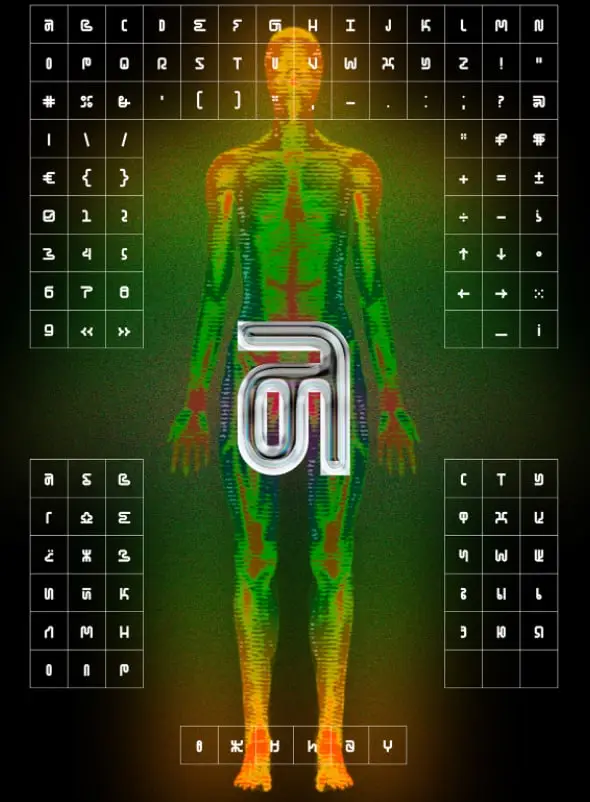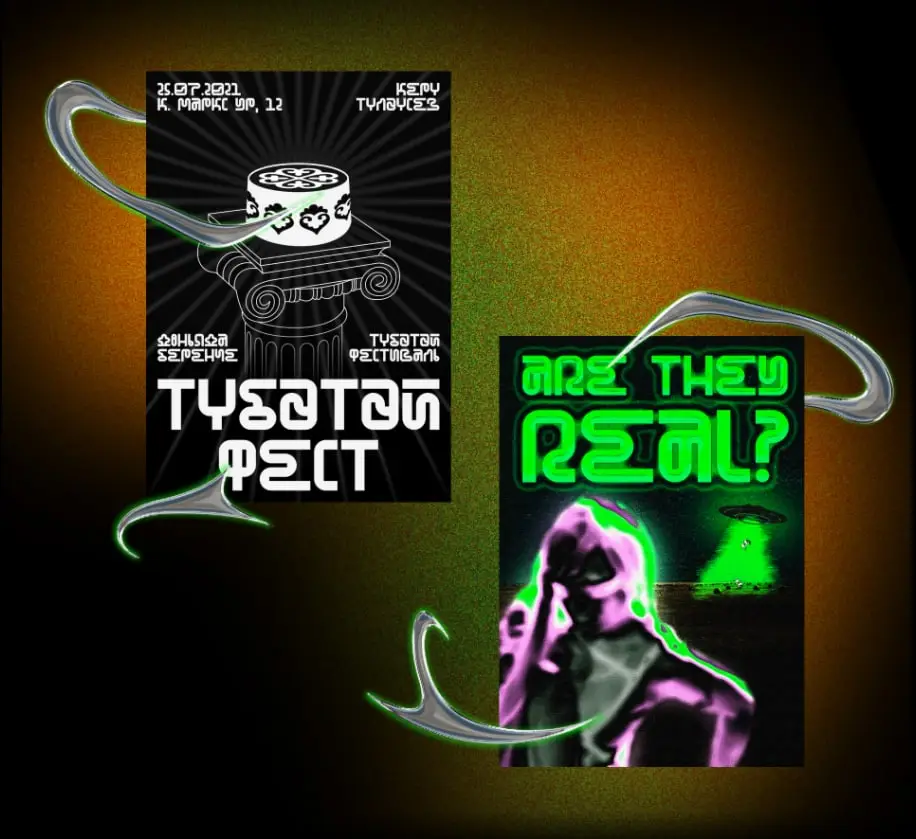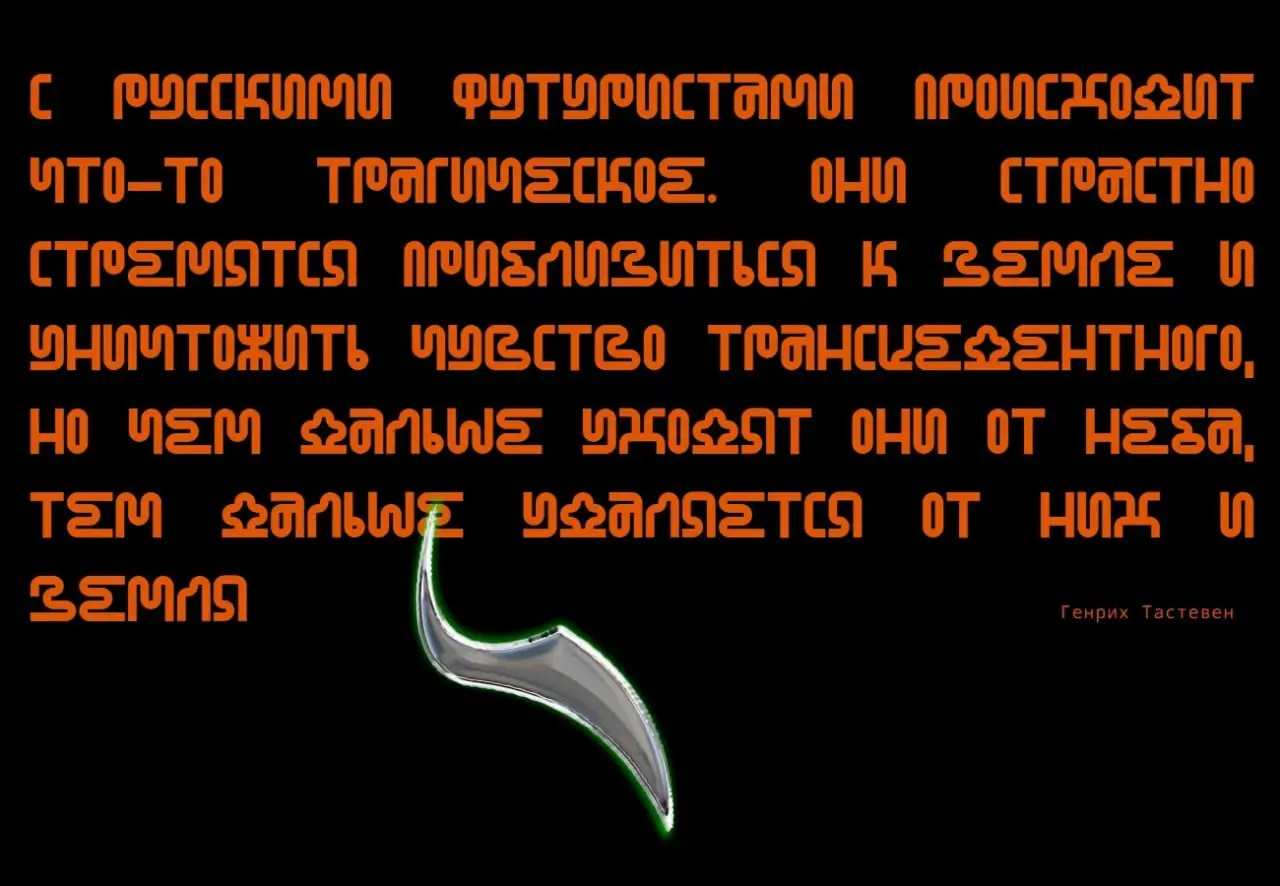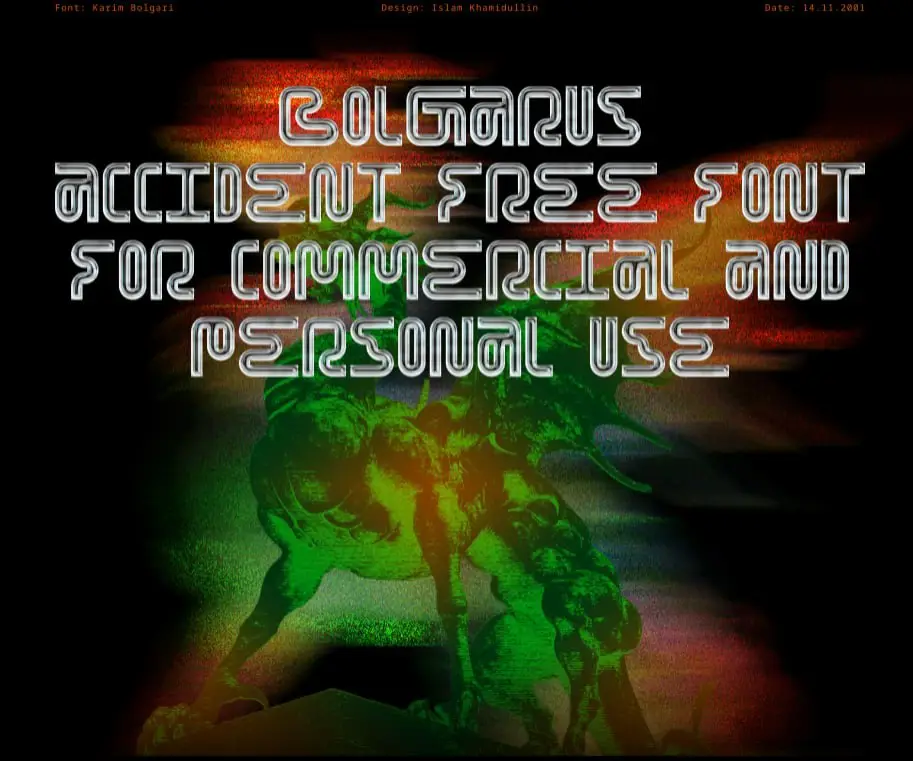
Bolgarus Font
Introducing the Bolgarus Font, a distinctive typeface designed to elevate your creative projects. This font features a unique blend of modern and classic elements, making it suitable for a variety of applications.
• Stylish and versatile design
• Multiple weights for flexibility
• Clear legibility in both large and small sizes
This font is ideal for branding, logos, web design, print materials, and user interfaces. Its unique style will help your projects stand out.